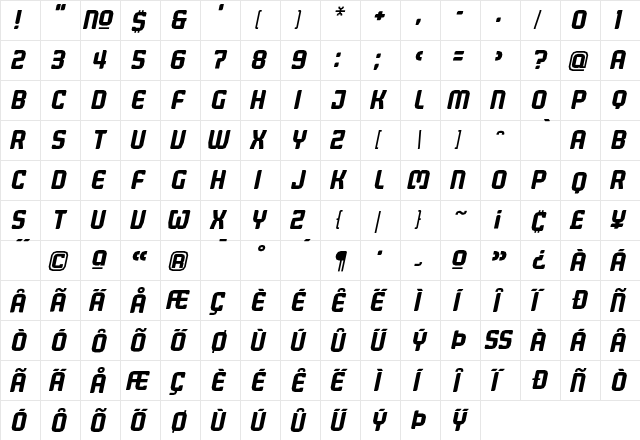
Judgement Italic Font Preview
Judgement Italic
Design Context for Judgement Typeface
Judgement is a composed and adaptable typeface that performs quietly and consistently across a wide range of design contexts. Its italic angle brings a sense of urgency and motion to the letterforms.
Pro Tip: Use Judgement for emphasis, pull quotes, and subheadings where its slanted energy can add rhythm to the layout.